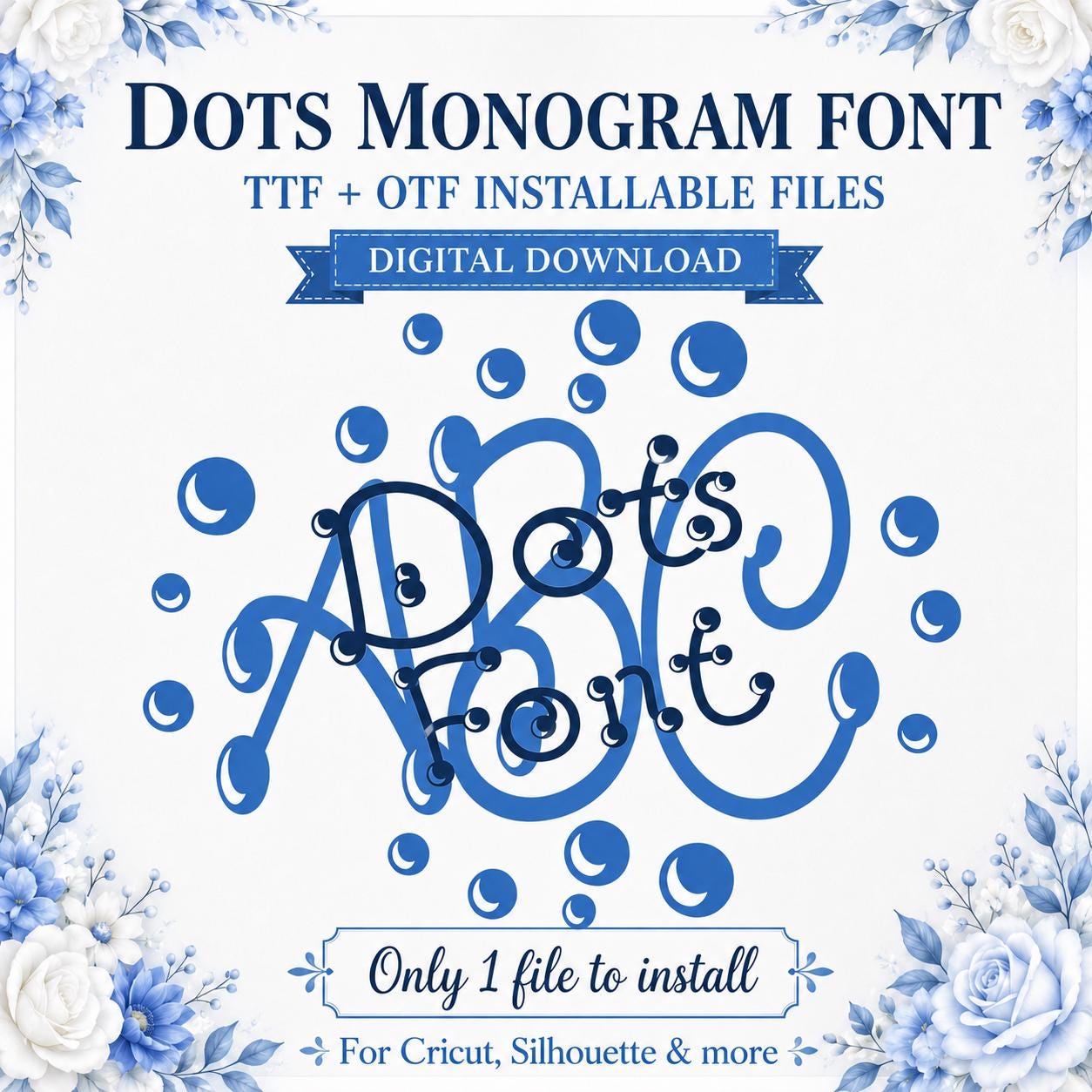
Create playful personalized initials with the Dots Monogram Font, an installable TTF and OTF font designed for Cricut, Silhouette, and other compatible desktop programs.
The decorative dots, curls, and whimsical letter style make this font perfect for monogrammed shirts, tumblers, mugs, decals, tote bags, signs, gifts, stationery, and finished products for your small business.